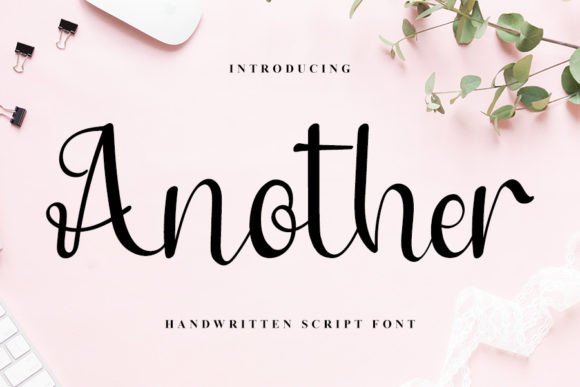
The Elusive Font: My Love Affair with Another Font
I still remember the frustration of working on a project, hours spent searching for the perfect font, only to come up empty-handed. My client was specific: they wanted a handwritten font that exuded elegance and sophistication. I scoured the internet, tried out countless fonts, but nothing seemed to fit the bill. That was until I stumbled upon Another Font. ✨
A First Impression: What I Love About Another Font
Another Font is a neat and beautiful handwritten font that boasts an elegant touch, making it perfect for a wide range of projects. Here are a few things that I absolutely love about it:
• ✅ Its incredibly distinct and timeless style, which adds a touch of sophistication to any design
• ✨ A wide range of OpenType features, including glyphs and stylistic alternates, which offer endless possibilities for customization
• 🔥 The font’s versatility – it can be used for everything from wedding invitations to branding and advertising
A Few Quirks to Keep in Mind
While Another Font is an amazing font, it’s not without its limitations. Here are a few things to keep in mind:
• ⚠️ Some users have reported issues with kerning, particularly when using the font at smaller sizes
• 🤔 The font’s elegance can sometimes make it difficult to read at very small sizes – use it judiciously!
The Story Behind Another Font
Another Font was designed by a talented typographer who wanted to create a font that would evoke a sense of elegance and sophistication. The designer spent countless hours perfecting the font’s curves and lines, resulting in a truly timeless design.
Font Name Another Font
Author Kongsi.Co
Q: Is Another Font suitable for body text?
A: While Another Font is beautiful, it’s best used for headings and titles. Its elegance can make it difficult to read at smaller sizes.
Q: Does Another Font come with a range of OpenType features?
A: Yes, Another Font includes a range of OpenType features, including glyphs and stylistic alternates.